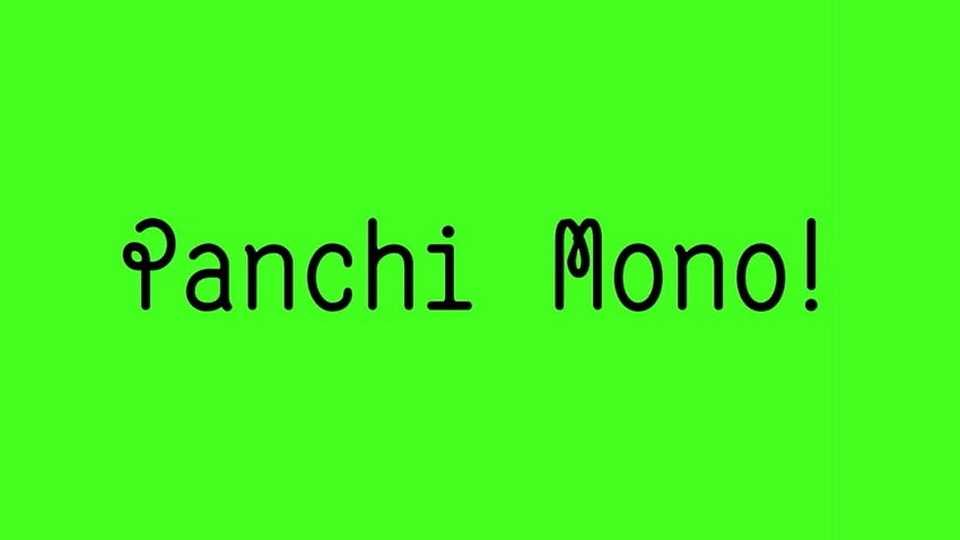
Download Panchi Mono font, a playful monospaced typeface inspired by 1960s lettering and the aesthetics of early digital technology.
Designer: Erwan Le Rétif